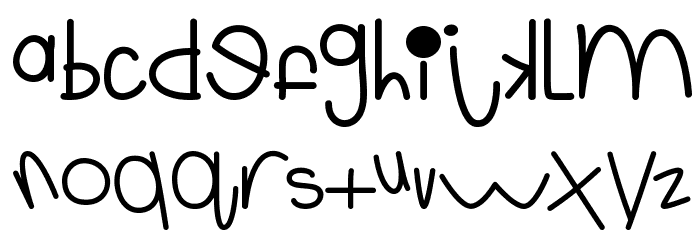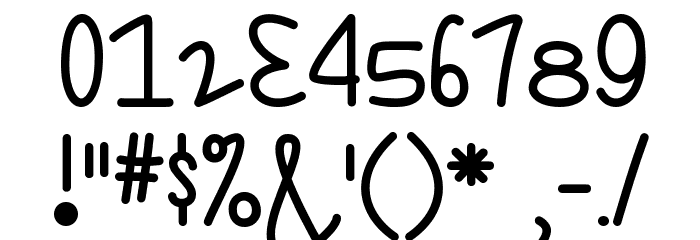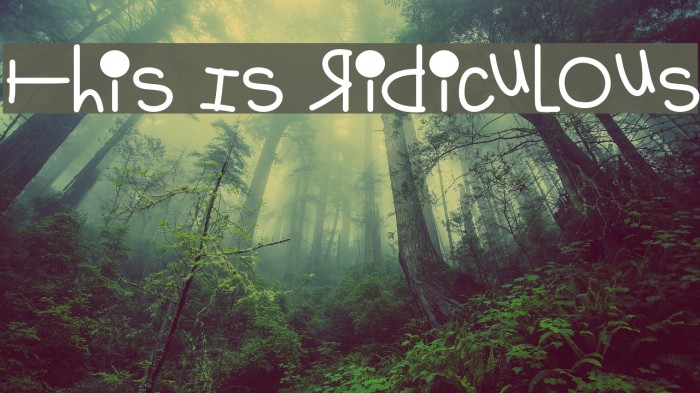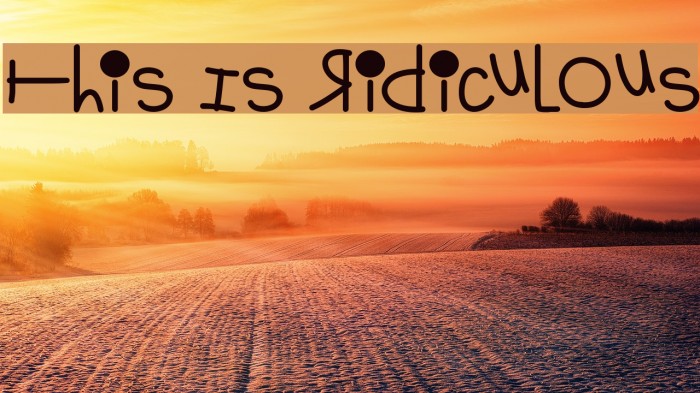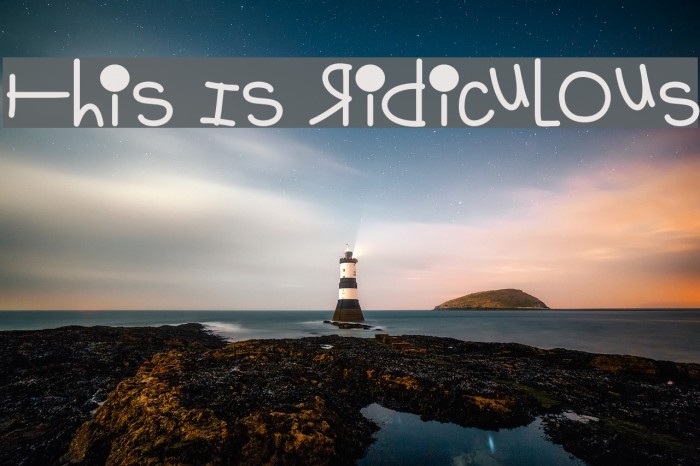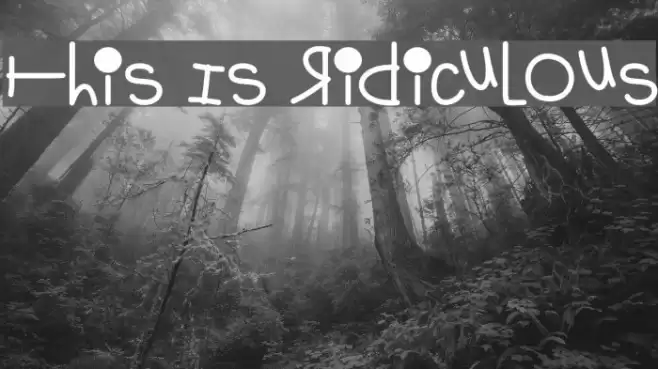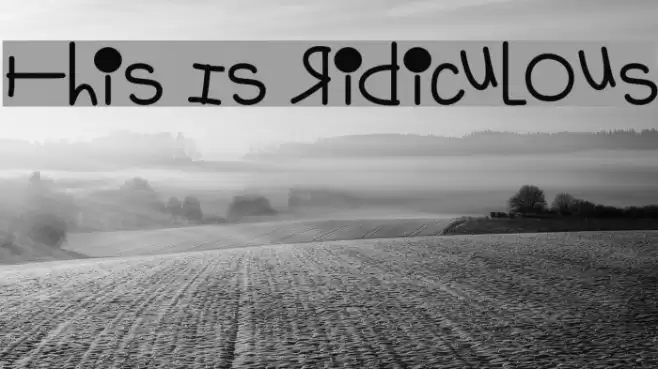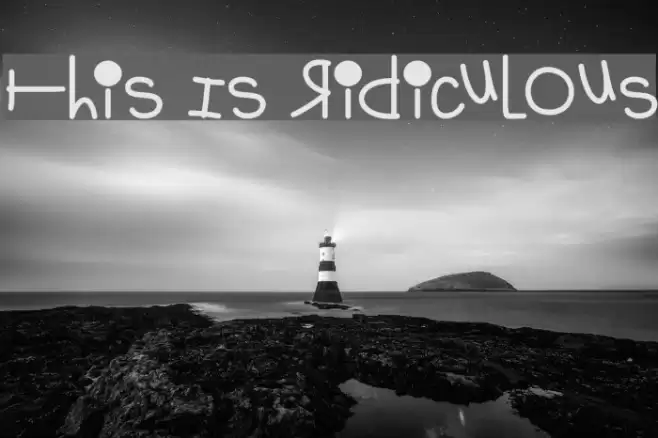
This Is Ridiculous Font
This playful and whimsical font features a unique, hand-drawn style with irregular curves and varying line thicknesses. The characters are bold and rounded, with a casual, informal appearance that adds a touch of fun and creativity. The uppercase and lowercase letters maintain a consistent style, with some letters featuring unexpected twists and turns that enhance the font's quirky personality. Numbers and special characters are equally distinctive, making this font suitable for projects that require a lighthearted and imaginative touch.
A playful, hand-drawn font with quirky, irregular curves and bold, rounded characters.
- Proposed Projects: Ideal for children's books, playful branding, greeting cards, and creative posters.